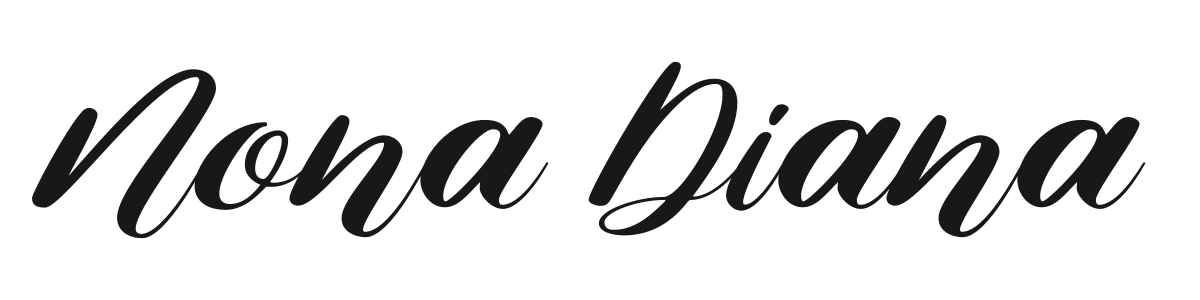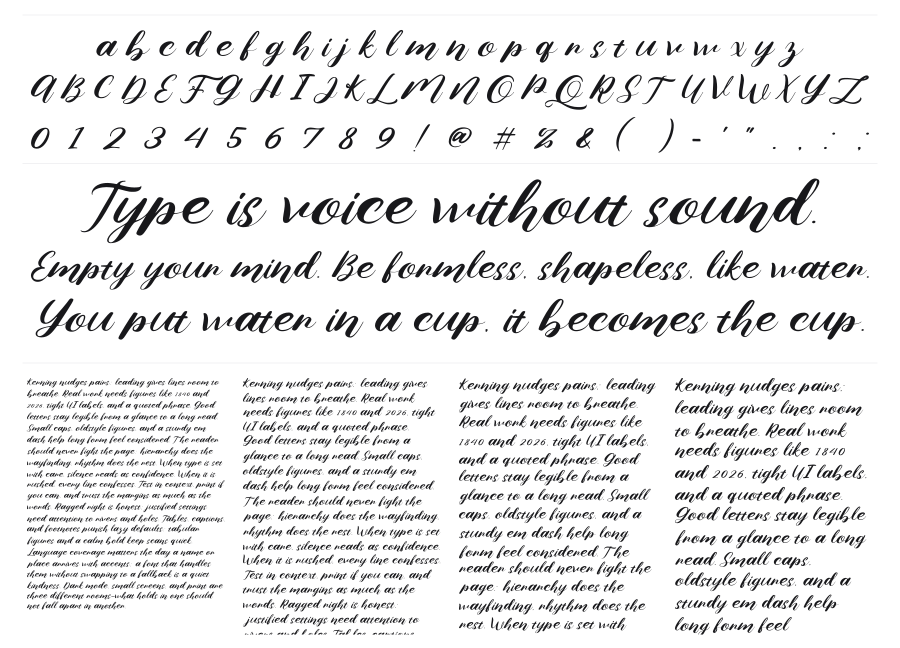
Nona Diana
Nona Diana is a bold contemporary brush script with sweeping strokes and lively calligraphic energy. High contrast between thick stems and wispy hairlines gives it a hand-lettered warmth, while the fluid connections between letters keep the rhythm fast and confident. It reads beautifully at large sizes in logos, invitations, and lifestyle branding.